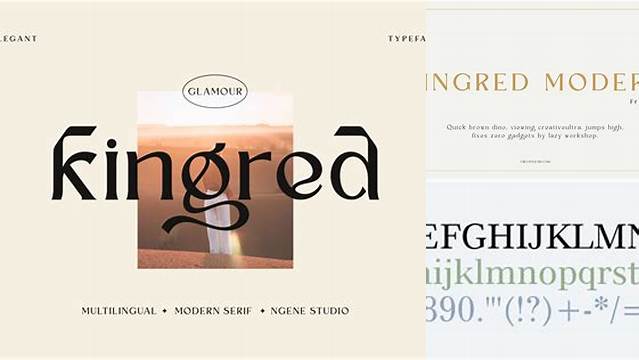
Hey guys! Are you looking to add a touch of modern elegance to your projects? Look no further! Kingred Modern Font is a fantastic choice, and in this guide, we're diving deep into everything you need to know about it. From what makes it so special to where you can snag a free download, we've got you covered. So, let's jump right in and explore the world of Kingred Modern Font!
1. What is Kingred Modern Font?
Let's kick things off by understanding exactly what Kingred Modern Font is. Simply put, it's a typeface designed with a contemporary aesthetic in mind. Think clean lines, elegant curves, and a versatile look that can fit a wide range of projects. Modern fonts like Kingred often prioritize readability and a sleek appearance, making them perfect for everything from website headers to branding materials. The beauty of Kingred Modern Font lies in its ability to convey sophistication without being overly complex. It’s a font that speaks volumes with its simplicity, making it a go-to choice for designers who want to make a statement. Whether you're working on a minimalist design or something more elaborate, Kingred can adapt and enhance your visual communication. So, if you're aiming for a contemporary and polished look, Kingred Modern Font is definitely worth exploring. It bridges the gap between functionality and artistry, providing a typeface that’s both practical and visually appealing.
2. Key Features of Kingred Font
Alright, let's talk specifics! What makes Kingred Font stand out from the crowd? Well, there are several key features that make it a top contender. First off, its clean and minimalist design ensures readability across various mediums, from print to digital. The letterforms are carefully crafted, providing a harmonious balance between elegance and functionality. Another standout feature is its versatility. Kingred Font works beautifully in headlines, body text, and even logos, making it a true all-rounder. Plus, many versions of Kingred Font come with multiple weights and styles, giving you even more creative freedom. Think about using the bold version for a striking headline and the regular weight for the body text to create a visual hierarchy. And let's not forget about the character set! A well-designed modern font like Kingred often includes a wide range of characters, including ligatures and alternates, adding that extra touch of sophistication to your designs. These little details can really elevate your work, making it look polished and professional. So, when you're choosing a font, consider the features that matter most to your project, and you'll find that Kingred ticks many of the boxes.
3. Design Styles That Suit Kingred
So, you've got this awesome Kingred Font, but how do you actually use it? Which design styles does it vibe with? Well, the beauty of a modern font like Kingred is its versatility. It's a chameleon that can adapt to various aesthetics. For starters, it's a perfect match for minimalist designs. Think clean layouts, lots of white space, and a focus on simplicity. Kingred Font adds that touch of elegance without cluttering the overall look. It also shines in corporate branding projects where a professional and sophisticated image is key. Imagine using it for a company logo or website headers – it instantly conveys credibility and modernity. But don't think it's only for serious stuff! Kingred Font can also work wonders in creative projects like posters, invitations, and social media graphics. Its clean lines and stylish curves add a touch of flair without being overwhelming. Think about pairing it with bold colors and interesting graphics for a visually appealing design. The key is to understand the overall mood and message you want to convey. With its adaptable nature, Kingred Font can seamlessly integrate into a wide range of design styles, making it a valuable asset in your toolkit. Whether you're aiming for sleek and professional or fun and creative, Kingred has got your back.
4. Kingred Font vs. Other Modern Fonts
Okay, so Kingred Font is great, but how does it stack up against other modern fonts out there? It's a valid question, guys! The world of typography is vast, and there are tons of options to choose from. When comparing Kingred to its counterparts, several factors come into play. One key aspect is its unique personality. While many modern fonts share a similar clean and minimalist aesthetic, Kingred Font often has its own subtle quirks and characteristics that set it apart. Maybe it's the slightly rounded edges, the unique shape of a particular letter, or the overall harmonious flow of the typeface. Another factor to consider is versatility. Some modern fonts are great for headlines but not so much for body text, while others might excel in one specific design style. Kingred Font typically strikes a good balance, making it adaptable to various applications. Think about where you plan to use the font and how important flexibility is to you. Price is also a factor, of course. While some premium modern fonts come with a hefty price tag, Kingred Font is often available for free download, making it an attractive option for budget-conscious designers. Ultimately, the best font for you depends on your specific needs and preferences. But by understanding the unique strengths of Kingred Font compared to other options, you can make an informed decision and choose the perfect typeface for your project.